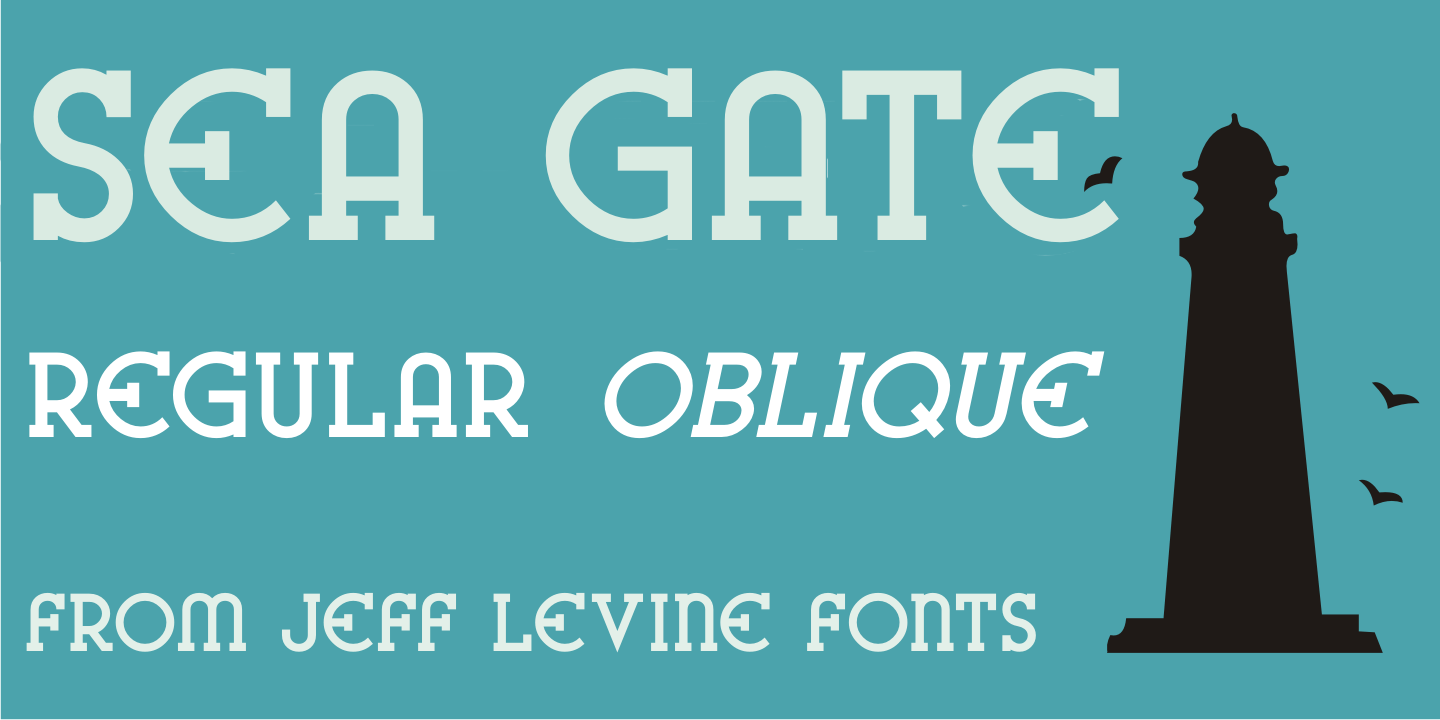
Sea Gate
Sea Gate JNL is a hybrid font creation based in part on a 1930s-era WPA (Works Progress Administration) poster and the addition of slab serifs as well as a few modifications to some of the characters in the original design.
The typeface is available in both regular and oblique versions.
Sea Gate includes 213 glyphs.